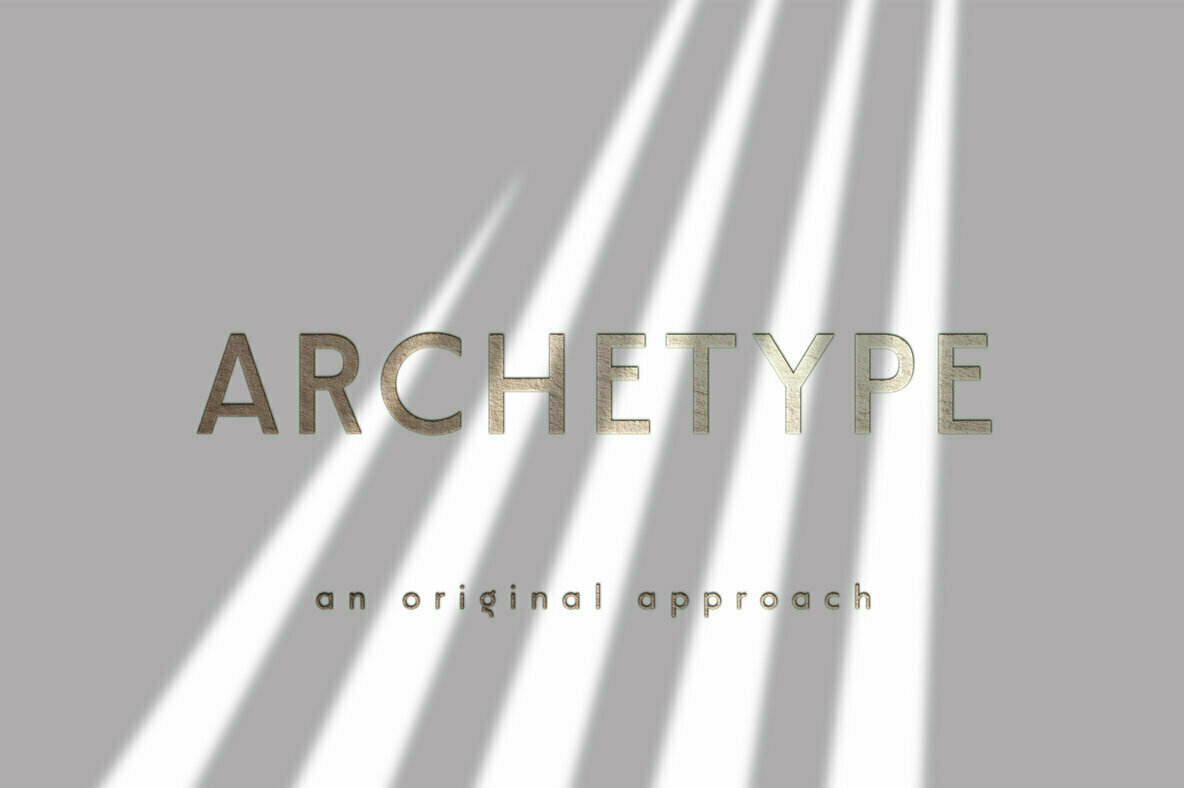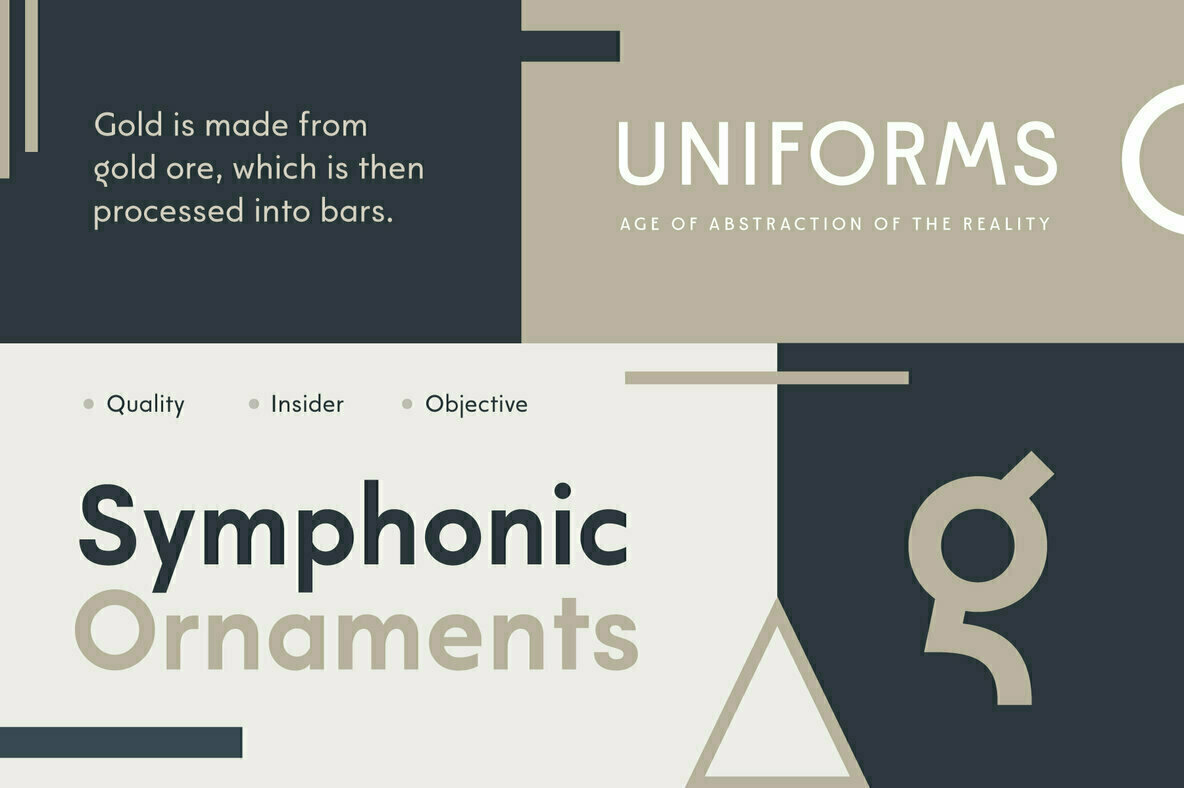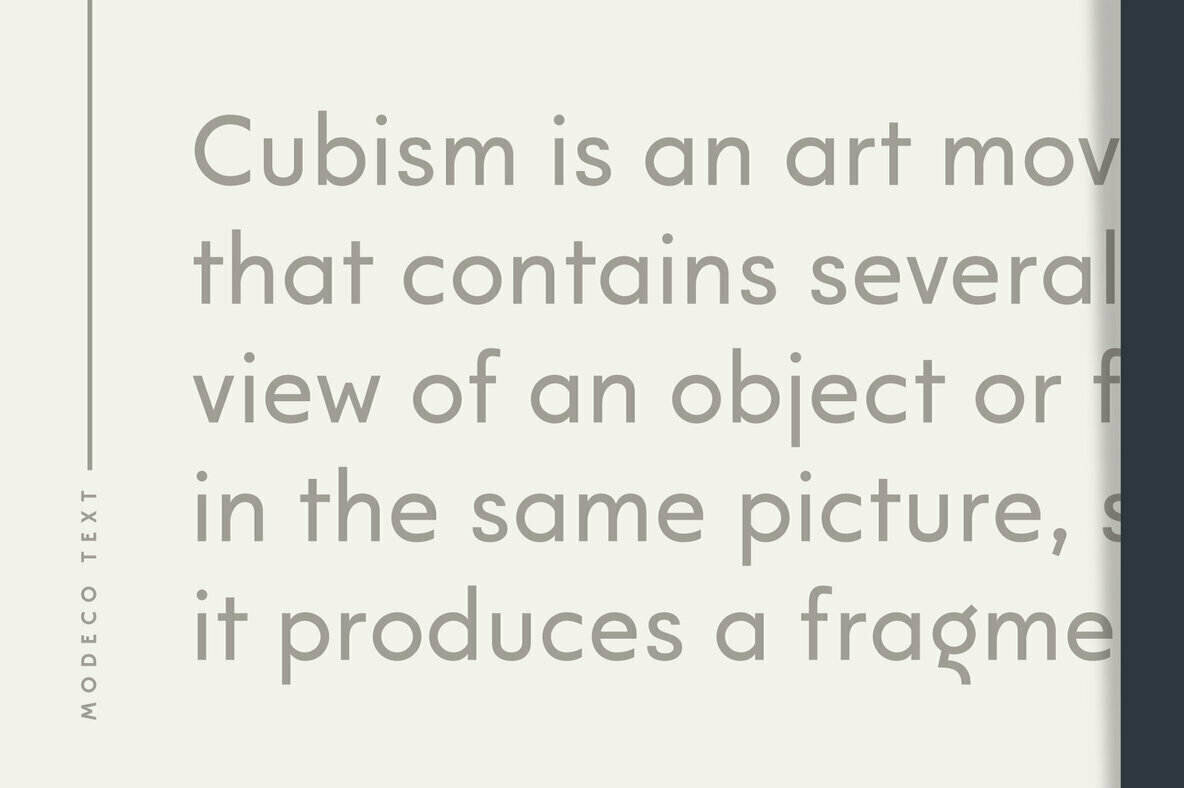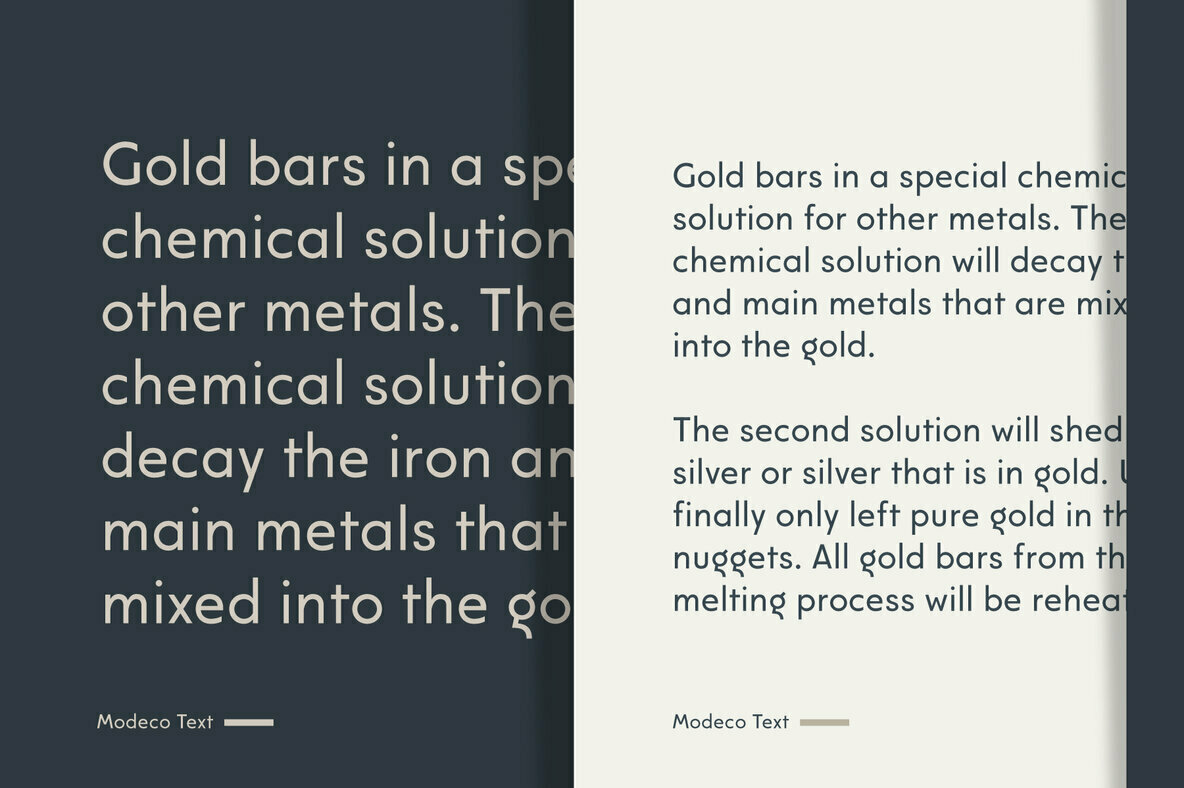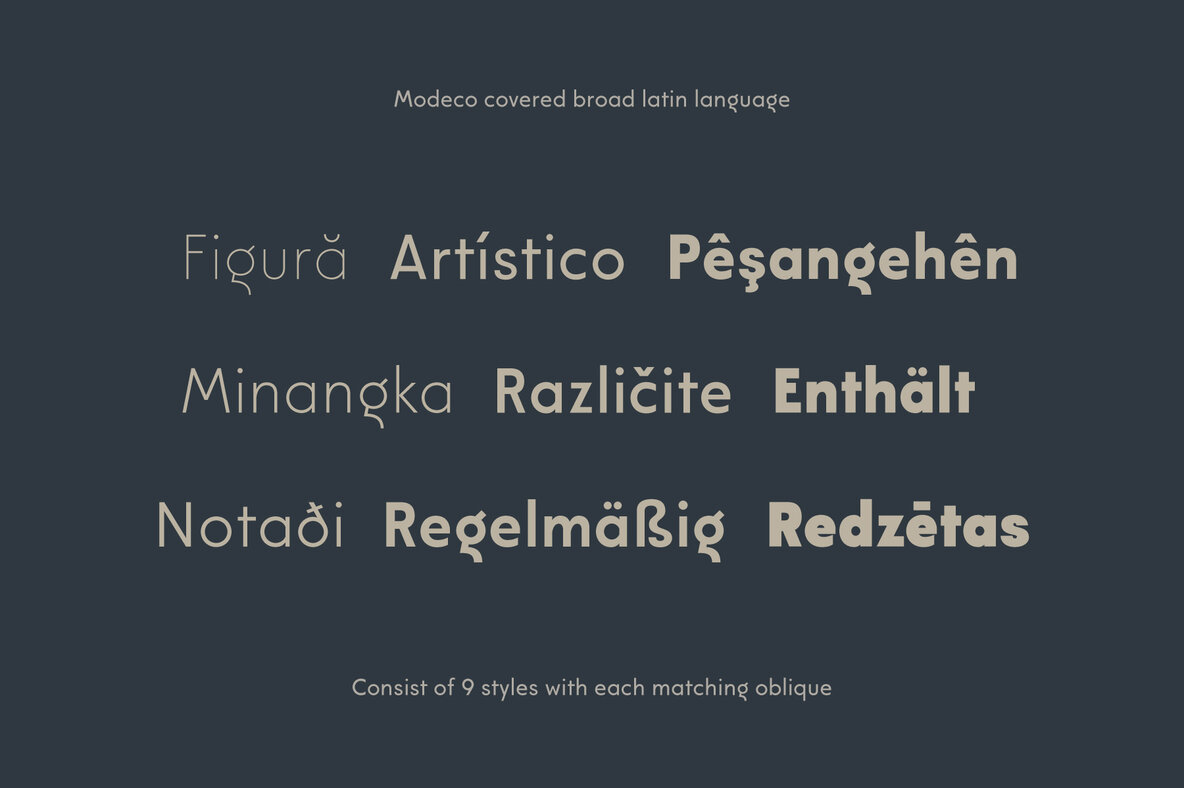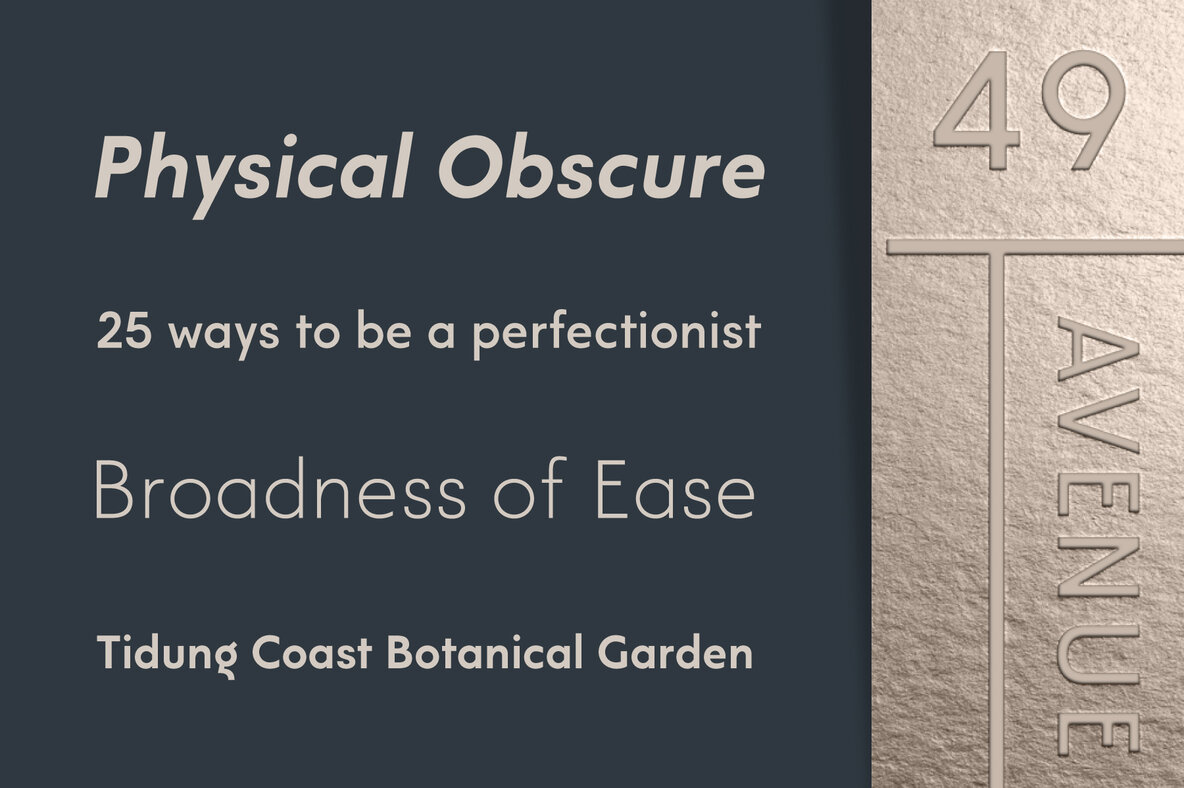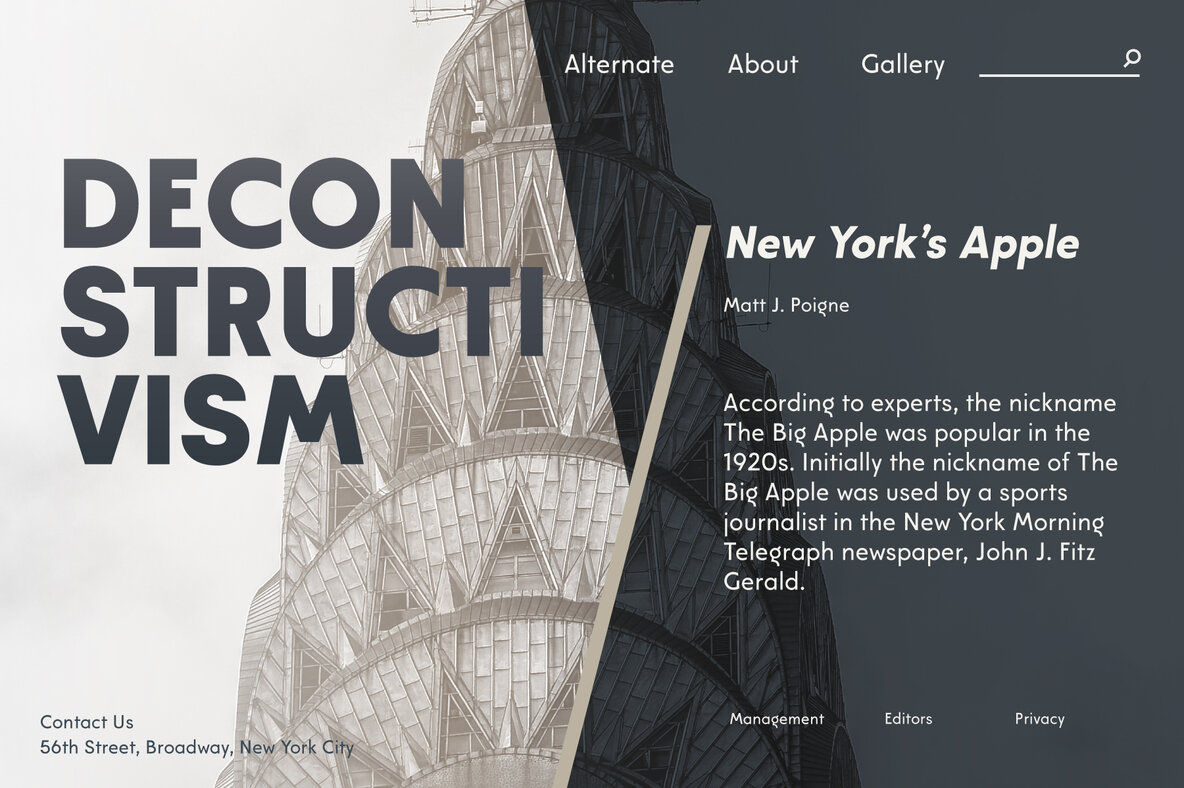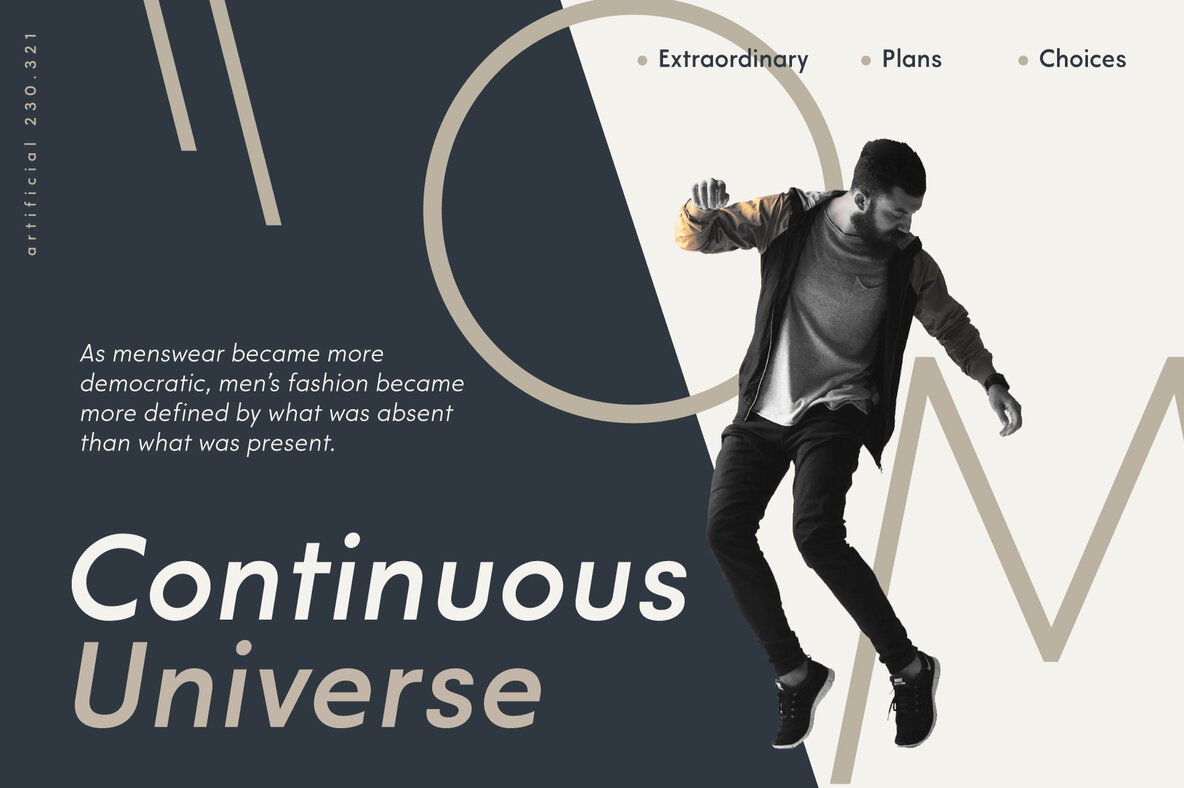
Modeco Font
Modeco is a merge of modern and art deco styles. Its shown elegance, classy, and glamour look as 1920's visual trends, blended with geometrical sans serif in a functionality approach and complete font family styles. Its consist of 9 styles from Thin to Black with each matching oblique. It's contain 400+ glyphs that covered broad latin language.